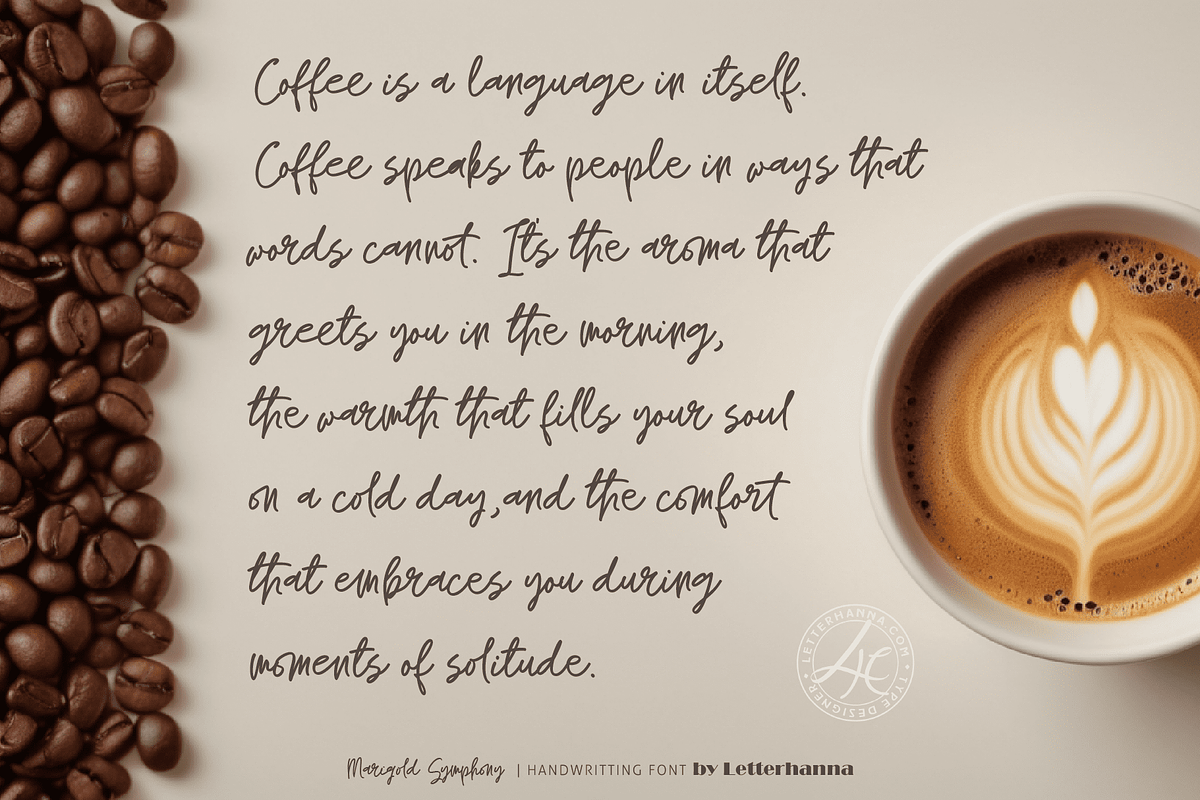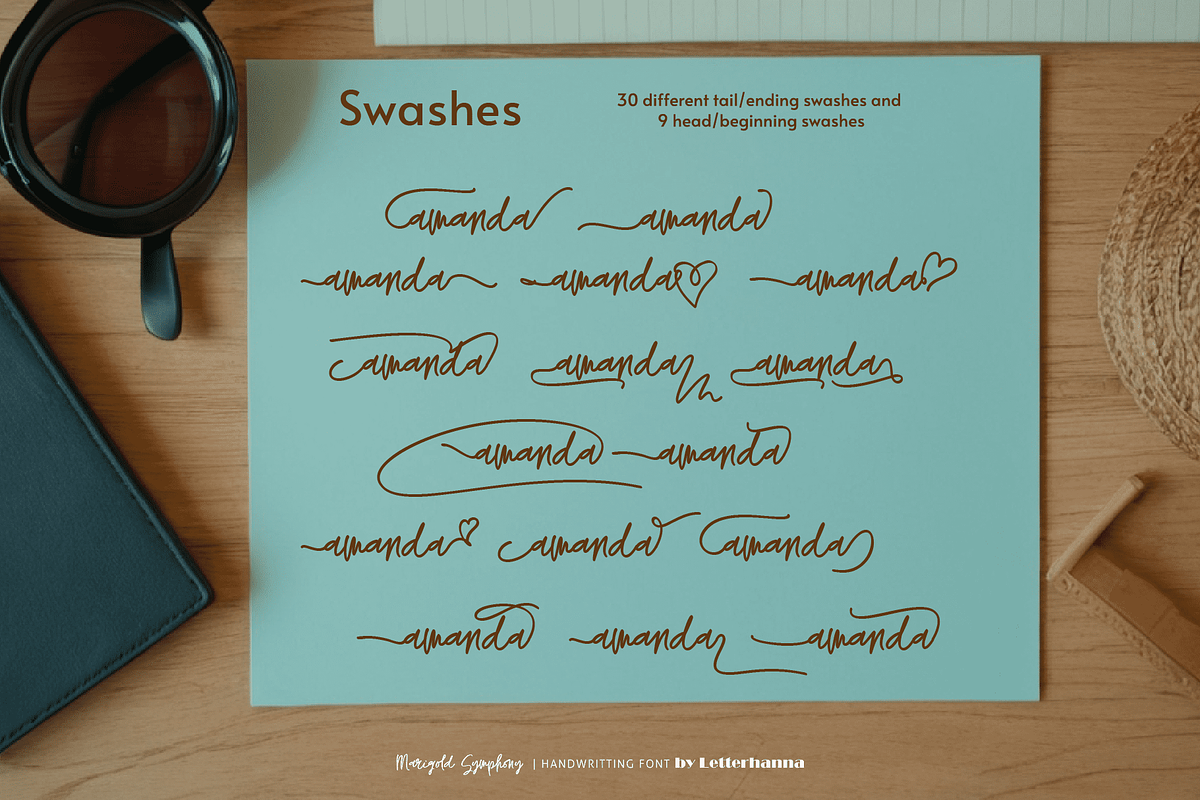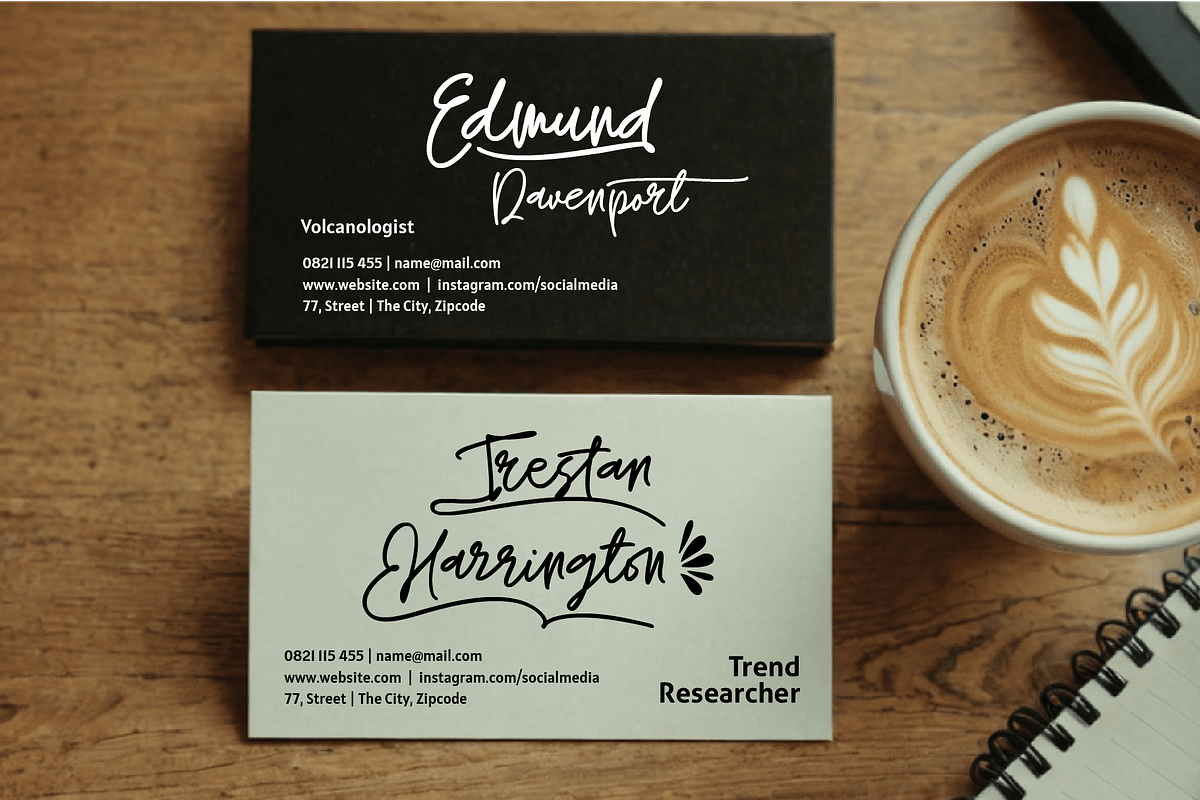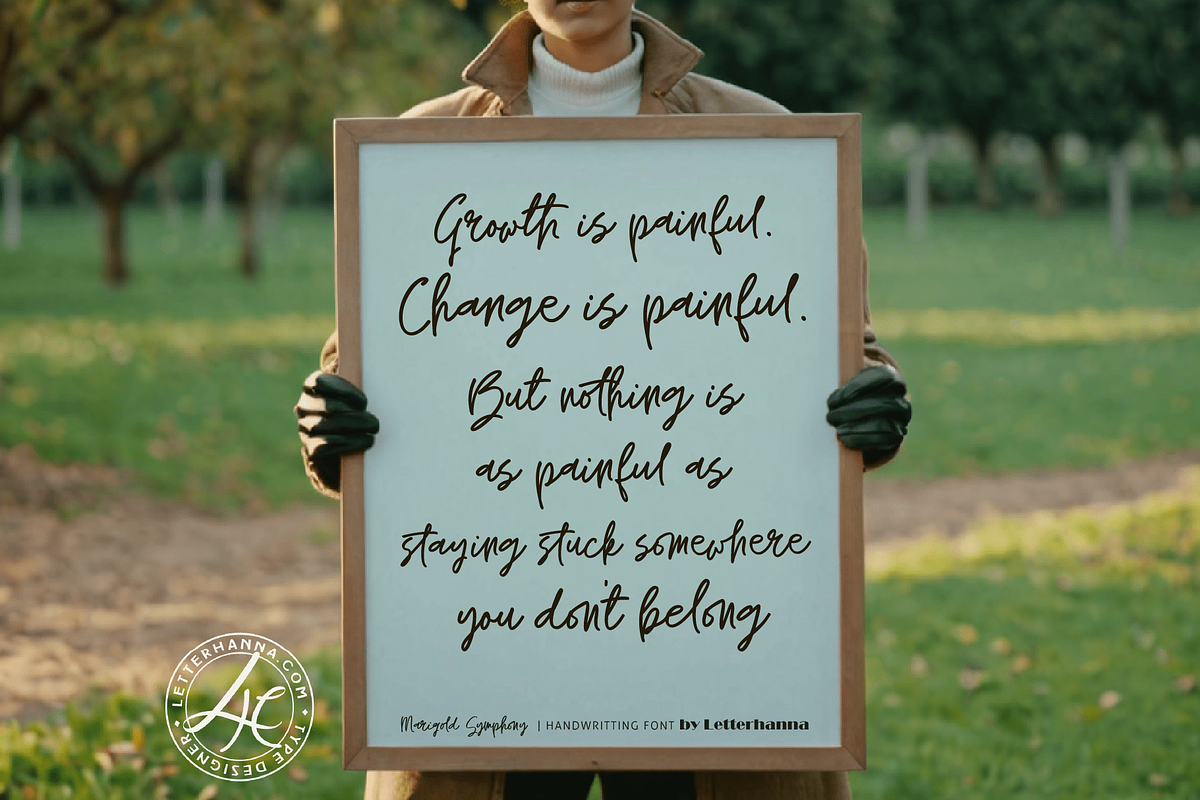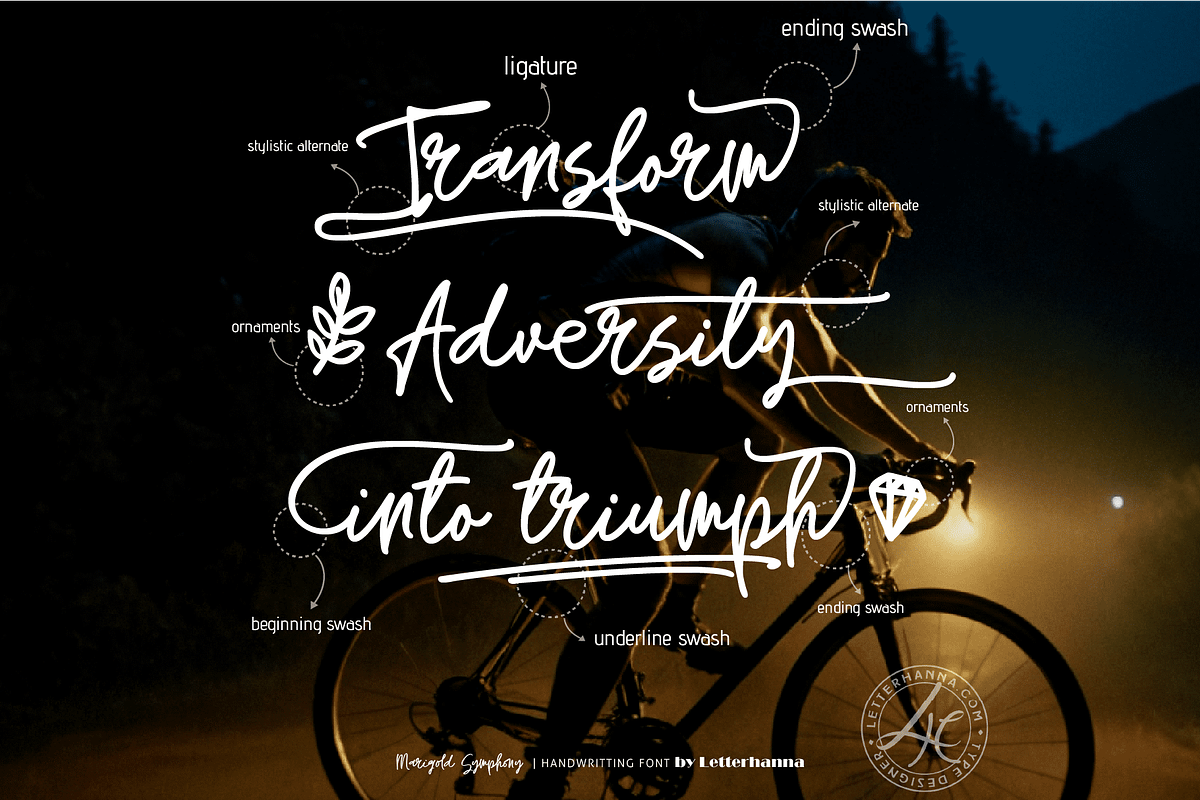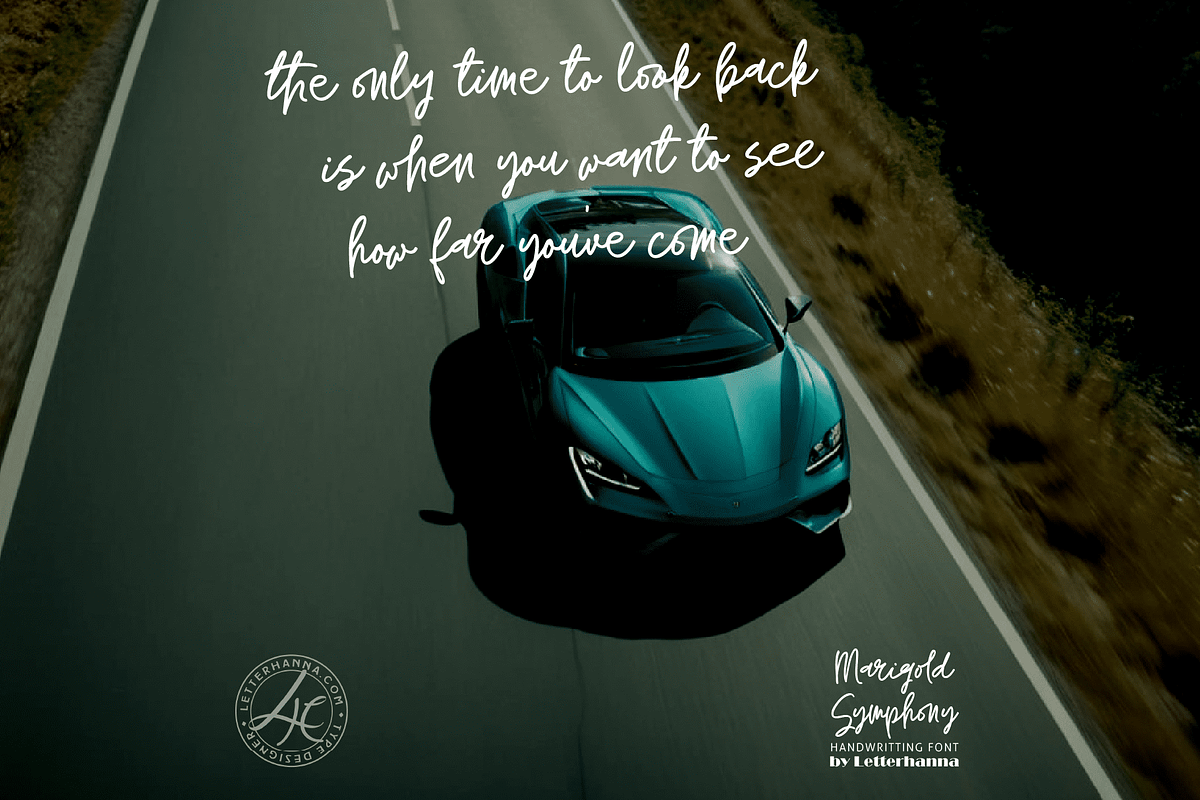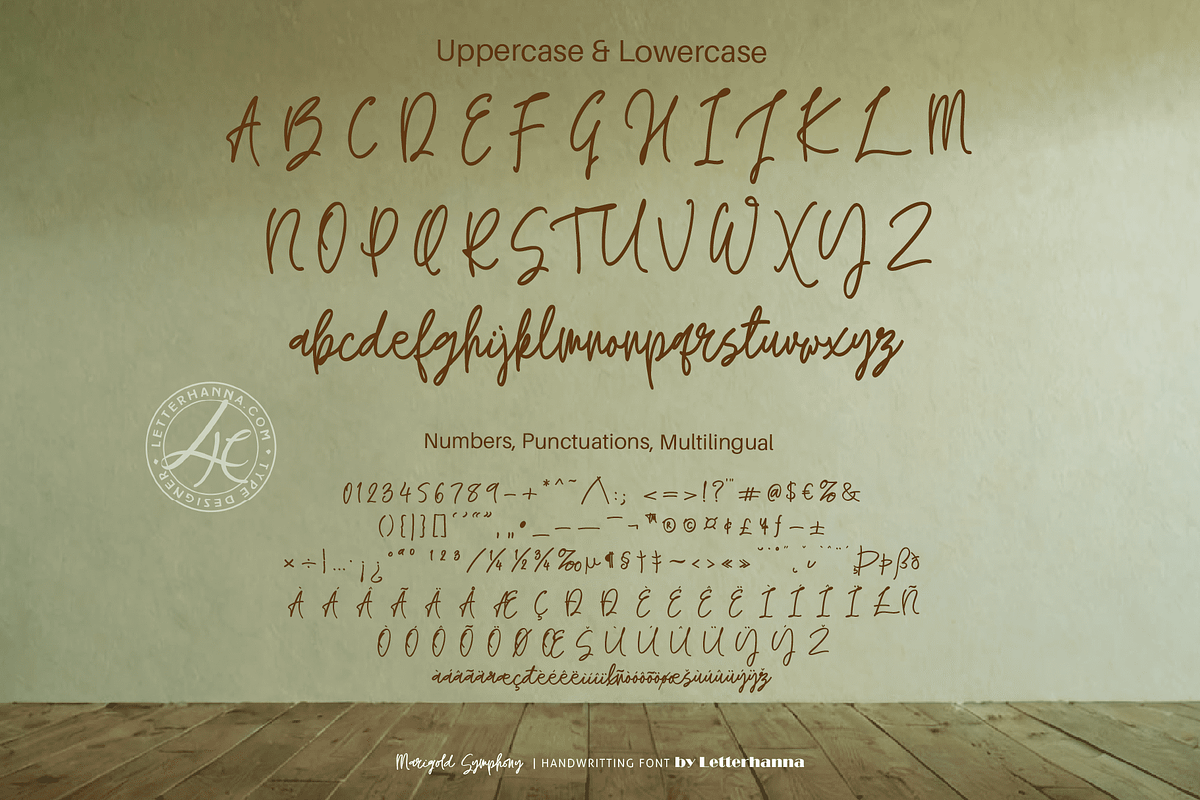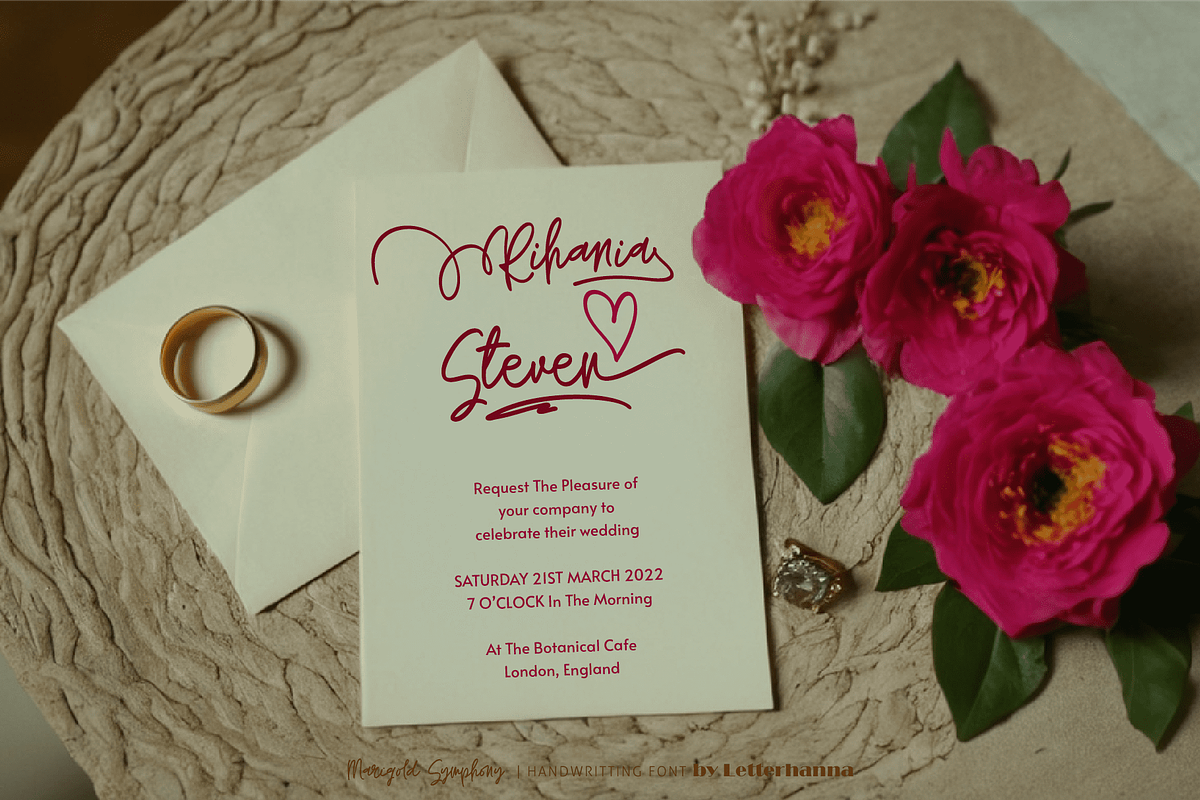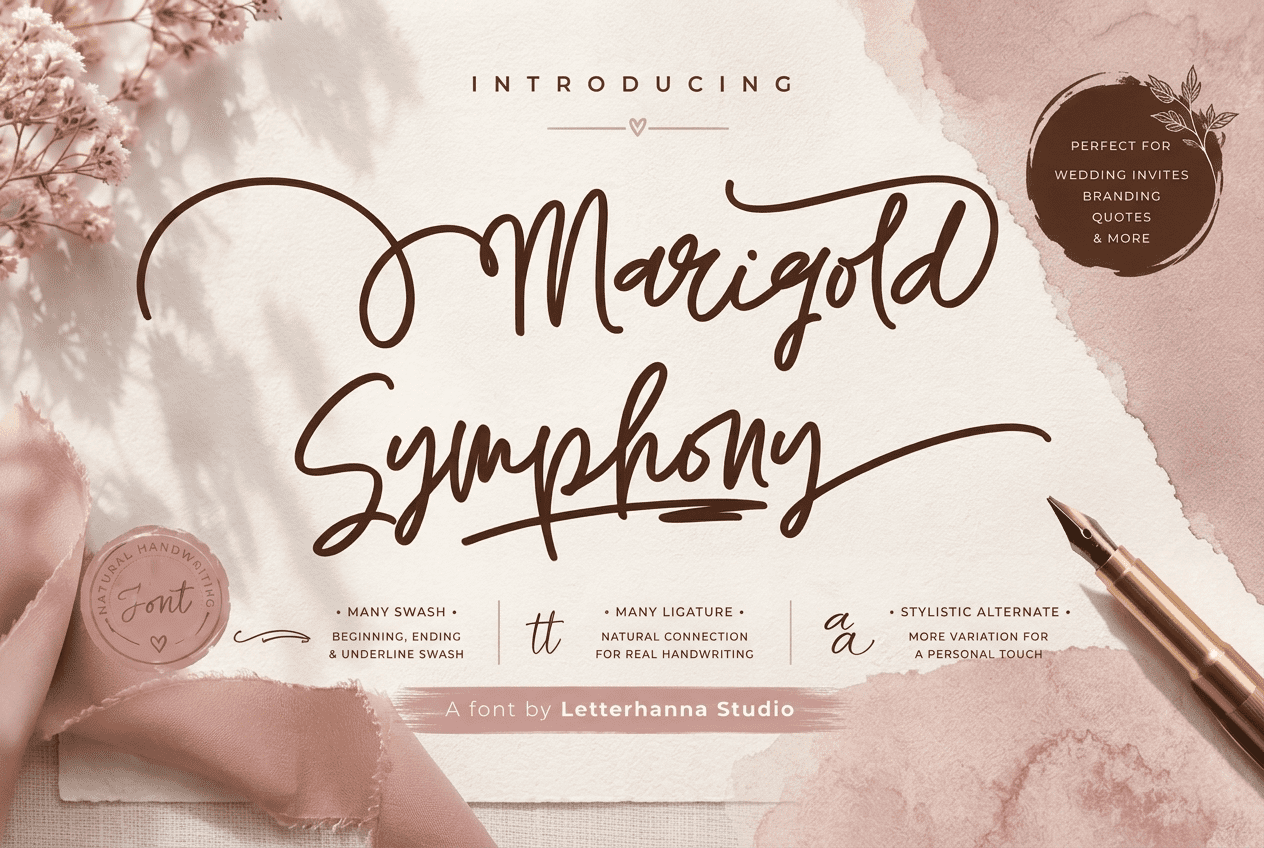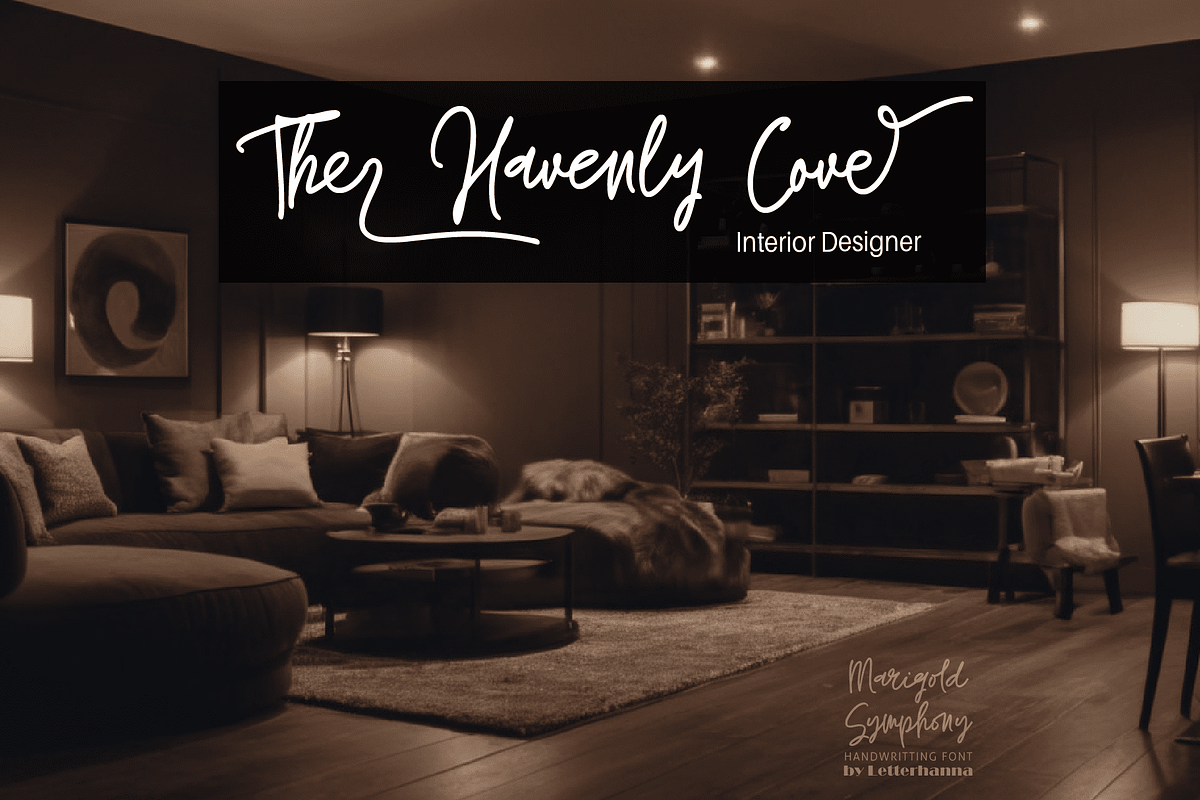
Marigold Symphony Wedding Font
Introducing Marigold Symphony, a handwritten script font that transcends the ordinary. Every letter dances with a touch of personality, capturing the essence of heartfelt penmanship. This isn't just a font, it's an invitation to express yourself with grace and sincerity.
Marigold Symphony is perfect for:
Wedding invitations and save-the-dates: Let your love story blossom with a touch of handwritten elegance.
Logos and branding: Add a personal touch that reflects your brand's unique character.
Social media graphics and quotes: Make your content stand out with a captivating handwritten aesthetic.
Stationery and letterhead designs: Elevate your written communications with a touch of sophistication.
Creative writing projects and poetry: Give your words the perfect canvas to flow and inspire.
Easy Access to Glyphs and Swashes
Accessing Stylistic Alternates
Stylistic alternates can be accessed by typing a plus symbol "+" in front of the original letter. For example, type "+A" to get the stylistic alternate of the capital letter A.
Accessing Swashes and Ornaments
Underline Swashes: Use a hyphen symbol "-" followed by a number between 1 and 30. For example, type "-3", "-22", or "-17" to get various underline swashes.
Head/Beginning Swashes: Use a dollar sign "$" followed by a number between 1 and 9. For example, type "$2" or "$8" to get different head/beginning swashes.
Tail/Ending Swashes: Use a percent sign "%" followed by a number between 1 and 30. For example, type "%3" or "%15" to get various tail/ending swashes.
Ornaments: Use an "at" symbol "@" followed by a number between 1 and 26. For example, type "@4" or "@13" to get different ornaments.
Uppercase and lowercase letters
Numbers and punctuation marks
Beginning and ending swashes
Underline swashes
Stylistic alternates
Ornaments
Easy access to swashes using ligatures